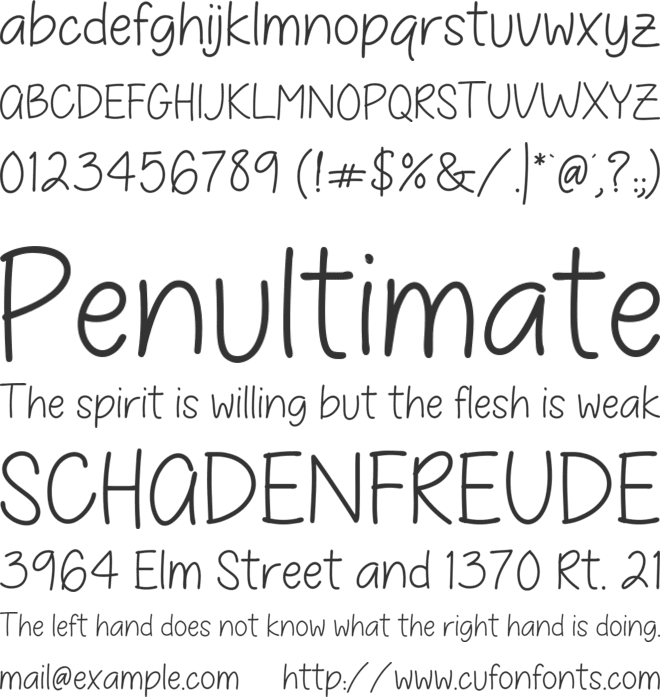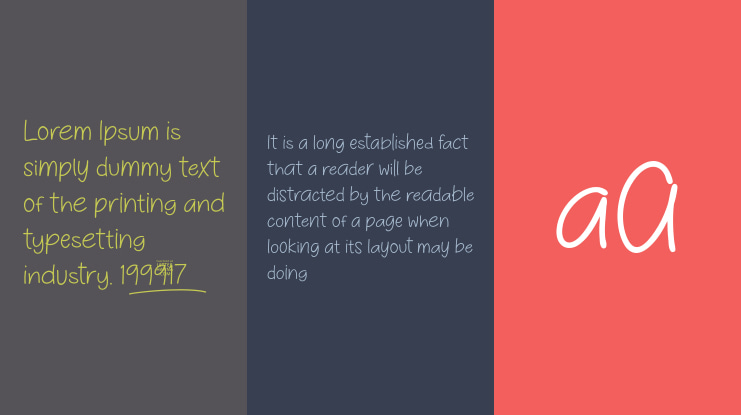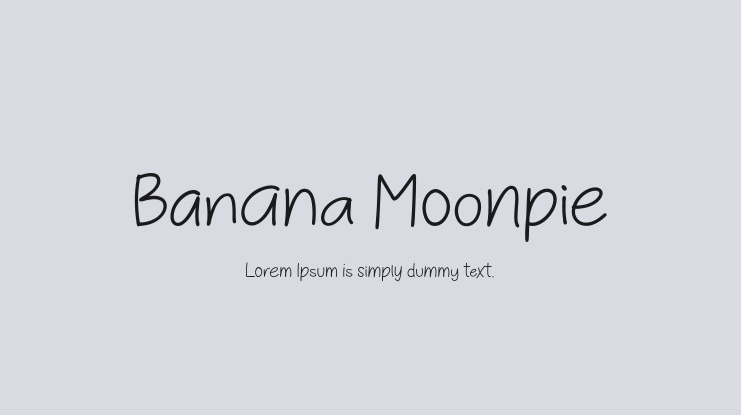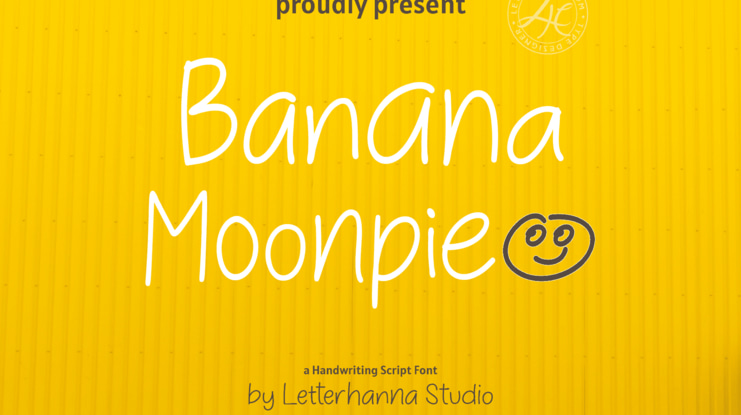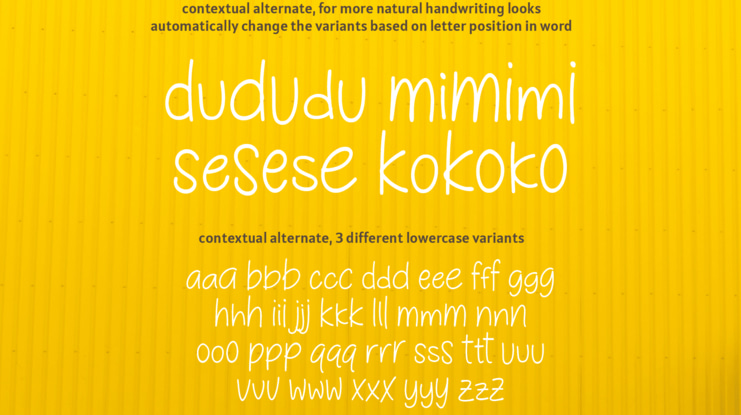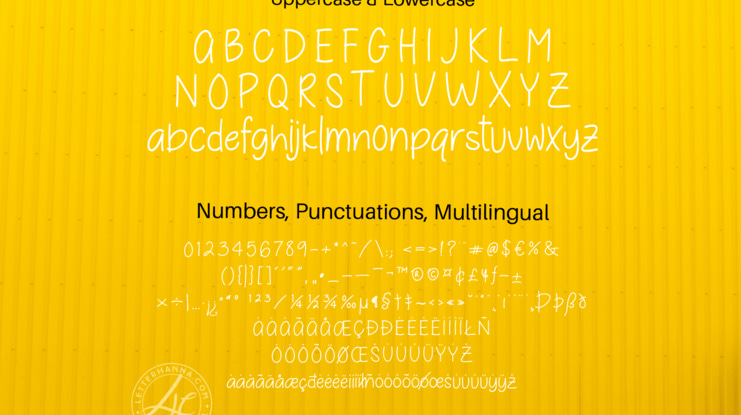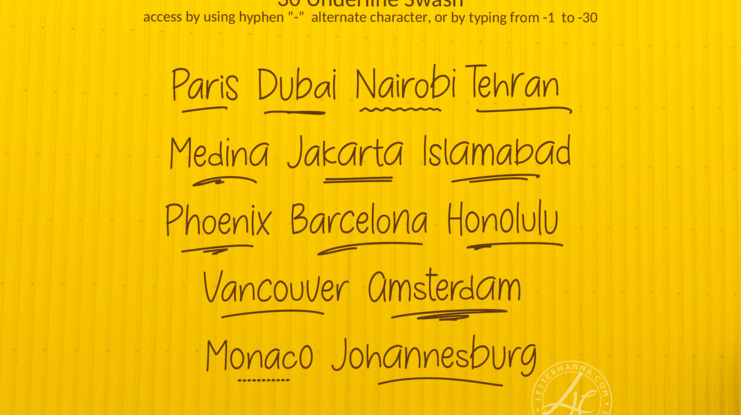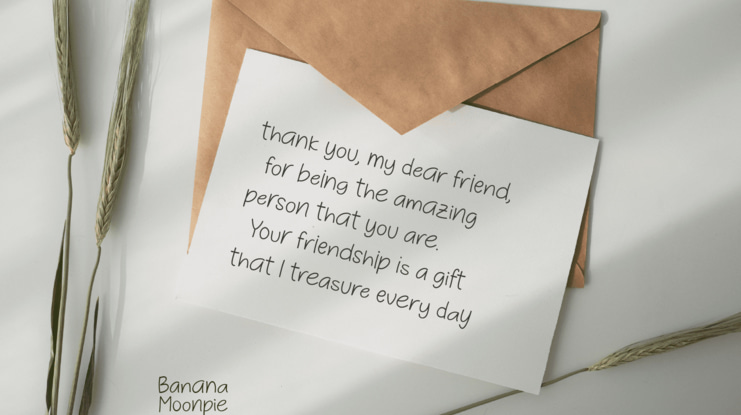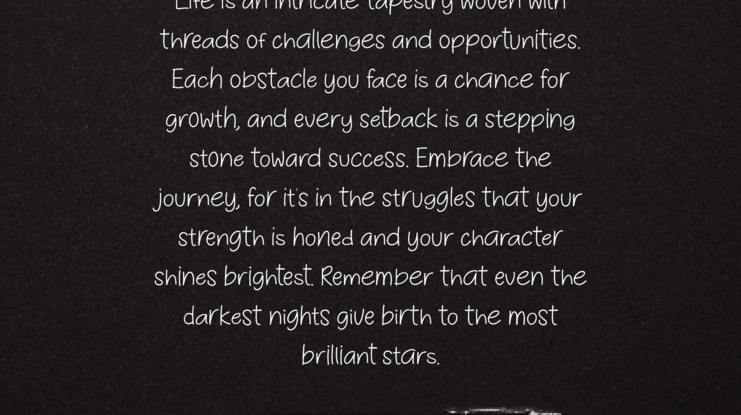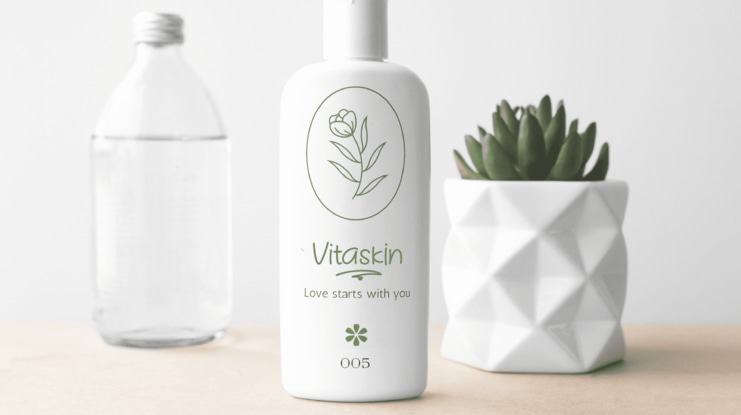
"Banana Moonpie" is a fresh and whimsical addition to the world of fonts. This unique sans serif handwritten font combines the casual charm of handwritten script with the clarity of a sans serif typeface, resulting in a delightful and versatile font that's as fun as its name suggests.